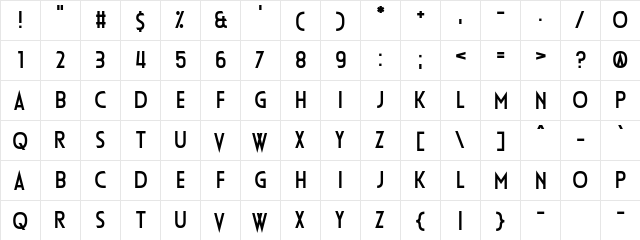
Die Frau Regular
| Designer | Allison James |
Design Context for Die Frau Typeface
Die Frau takes a measured approach to typography — its balanced proportions and neutral character make it a reliable workhorse for both digital and print work.